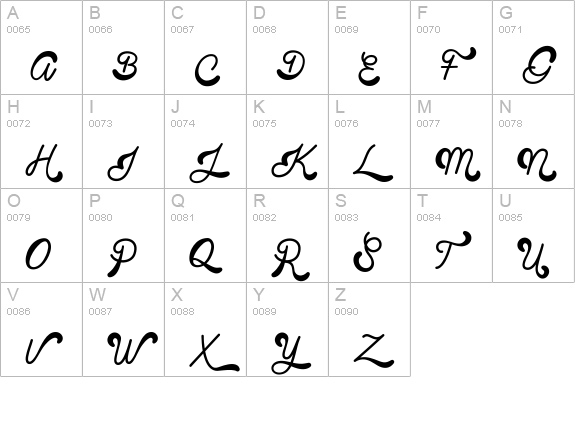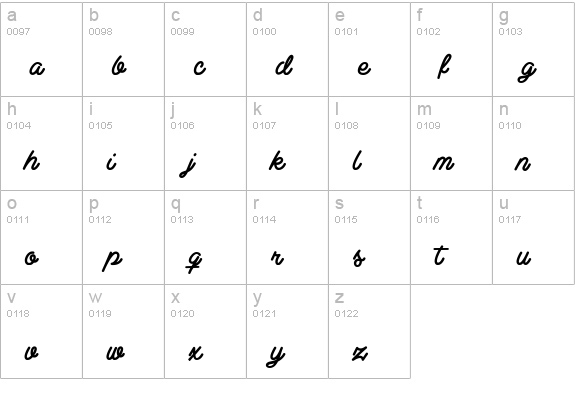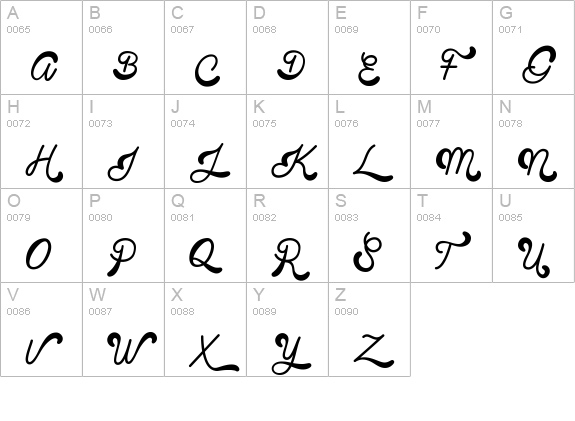
Clear Line is a stunningly sleek and modern font that is perfect for personal use. With its clean lines and elegant curves, it adds a touch of sophistication to any project. Whether you're designing invitations, creating social media graphics, or working on a personal blog, Clear Line is the ideal choice. What sets Clear Line apart is not just its striking design, but also the fact that it is available for free. That's right, you can download this incredible font without spending a penny. It's a fantastic opportunity to enhance your personal projects with a professional and polished look, without breaking the bank. Clear Line is the epitome of versatility. Its simple yet refined style makes it suitable for a wide range of applications, from headlines to body text. The clean lines and legible characters ensure that your message is clear and easily readable, while the elegant curves add a touch of sophistication. Whether you're a seasoned graphic designer or just starting out, Clear Line is a font that is sure to impress. Its timeless design will never go out of style, making it a valuable addition to your font collection. And with its availability for free download at FontsMarket.com, there's no reason not to give it a try. So why wait? Download Clear Line today and elevate your personal projects to a whole new level. With its sleek design, versatility, and the fact that it's available for free, it's a font that you simply can't pass up. Don't miss out on this amazing opportunity to enhance your creative endeavors. Get Clear Line now and let your imagination soar.